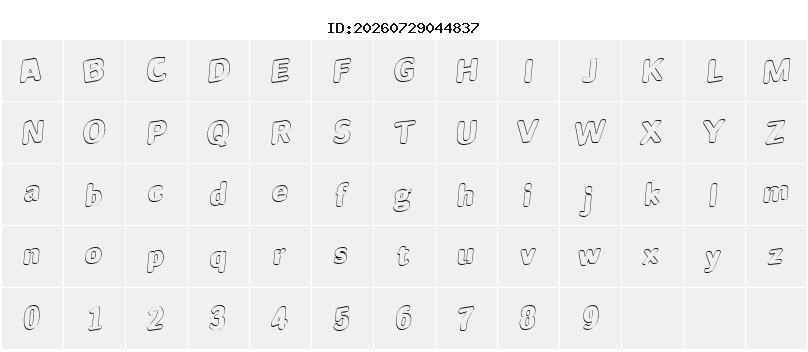
Jinx Preview
• Font Name: Jinx
• Full Font Name: Jinx
About Jinx.ttf
Jinx.ttf is a modern, elegant sans-serif font designed for ultimate readability and visual harmony. Perfect for branding, headlines, web design, and print materials.